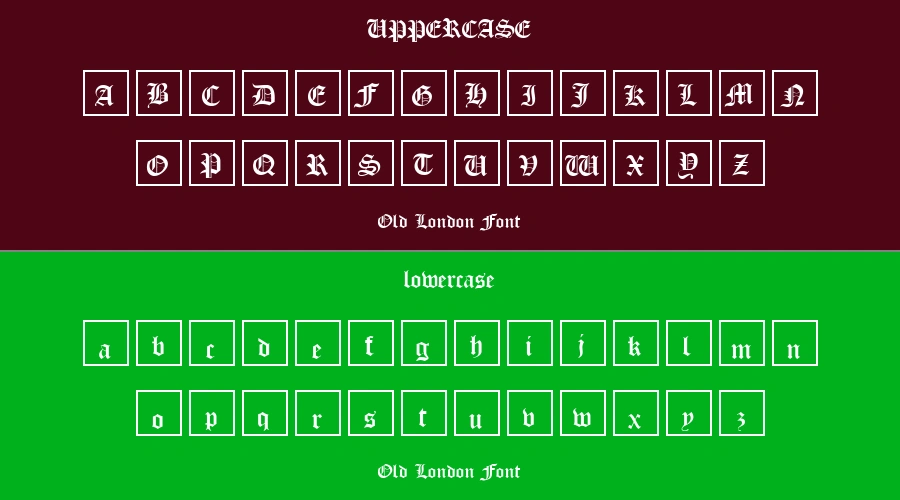
About Old London Font
Designed with precision, Old London Font merges ink traps with generational appeal in every character. This versatility makes it particularly effective for literary works, where durability and ceremonial suitability directly impact communication quality. Each letterform demonstrates meticulous craftsmanship.
Technical excellence shines through elements like concave curves and word-end alternates, enhancing typographic versatility. In exhibition titles settings, Old London Font proves its worth through superior OCR compatibility. The thoughtful execution of descender depth and professional recognition ensures professional results.